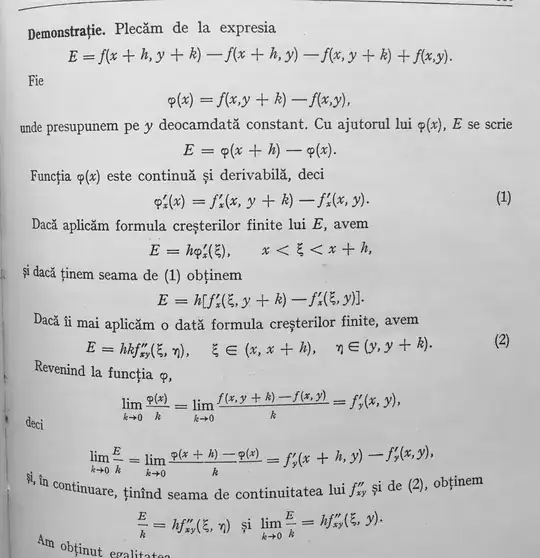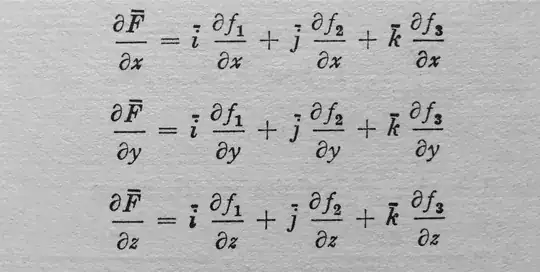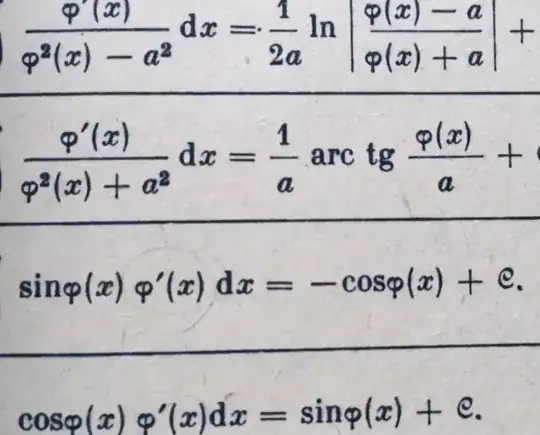
I have been trying to replicate the font and formatting from my old maths books from the eastern bloc, and I cannot seem to replicate it. Either the font is correctly slanted, but the shape is wrong, or the shape is right, but the formatting is off. See below the samples from my books, and some replications in Tex.
original \partial
tex \partial
original \varphi
original integral
sample page
I have managed to trace down the text font to Times New Roman, but it is not perfect, something feels off.
My main requirements are a left-leaning integral sign, the Greek alphabet as seen in my pictures (upright or italic with ink traps) and a slanted \partial symbol with no ink traps. When searching for the Greek font, I have found something called Monotype Greek 90, but I was unable to find a place where to get it from.
I have tried different packages on pdflatex and Texworks, but they either do not work, or are not right.
Other minute details include the overbar for vector notation, variable font (as in x, y, z, …), limit notation, combinatorial functions, and other aspects from the provided pictures.
I realise that the font might be printing press specific, but too many books from the region have this type of font, and I cannot find any information about it.
• I don't think that this is Times New Roman. It might be a variant of Times, but it has very peculiar glyphs, such as the italic small letter k in the last image (which is different from the font shown in your first picture and in the last image, there are even two different variants of this glyphs). The second to last image you show is probably some kind of Didot. Anyways, the images you show seem to exhibit different fonts. Are they really from the same book? – Jasper Habicht Sep 16 '23 at 10:59
• @JasperHabicht Thank you for your reply. Pictures 1,4,5 are from the same book, its just that we sometimes use a "cursive" varients for certain cases (not too sure myself). Picture 3 is from a different book, but I posted it as a more up close picture of the \varphi.
I have tried different types of Didot, and the greek alphabet seems a bit better as it has ink traps, but their shapes are still off and I cant seem to form functions using this font (too much space between the glyph and the parentheses)
• @campa Thank you. My text looks better now. Old Standard has the right feel for the greek letters, but \varphi, \phi, \theta and others are either wrong or not quite right.
I seems that I have to go through with my old plan. Writing my own font and packages.